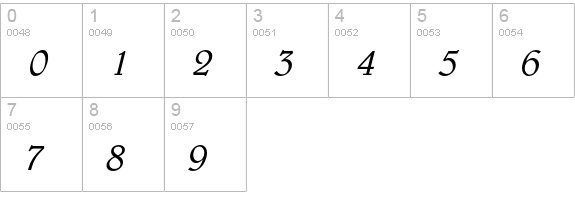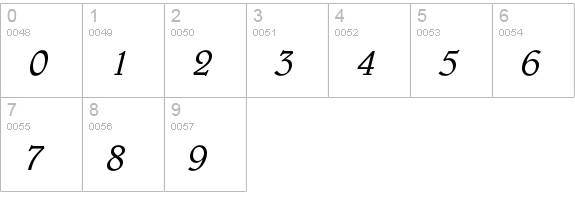
Belwe Std Light Italic is a refined, elegant, italic variant in the Belwe typeface family \xE2\x80\x94 well suited to elegant body text, refined sub-headings, and luxury branding.
Belwe Std Light Italic is a graceful and elegant typeface that exudes sophistication and charm. With its delicate slant and subtle curves, this font is perfect for adding a touch of class to any design project. Whether you are creating invitations, greeting cards, or branding materials, Belwe Std Light Italic is sure to make a statement. What's even better is that this exquisite font is available for free download at FontsMarket.com. You can easily access this stunning typeface and elevate your designs without any cost. Don't miss out on the opportunity to enhance your projects with the timeless beauty of Belwe Std Light Italic.